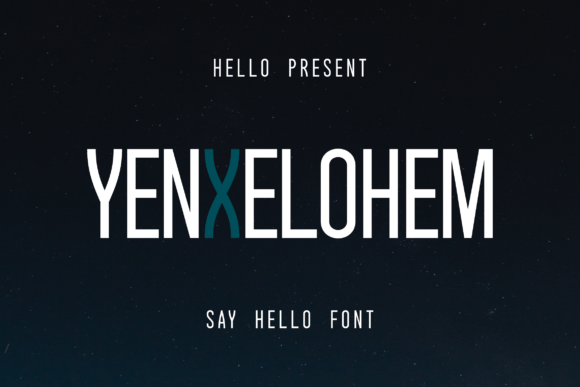
Introducing Yenxelohem Font, a remarkable sans serif font family crafted by ponuppo, a renowned typographer. This font exudes elegance and modernity, leaving an unforgettable impact on your digital creations. Its minimalist and clean vibe effortlessly elevates the visual appeal of book covers, magazines, social media posts, invitations, and a myriad of other designs.
Yenxelohem Font redefines sophistication with its crisp lines and meticulously crafted curves. It's a font that speaks volumes, communicating professionalism, clarity, and an understated charm. Immerse yourself in the world of Yenxelohem Font and discover a font that seamlessly blends timeless aesthetics with contemporary flair.
With Yenxelohem Font, you'll unlock a world of creative possibilities. Its versatility extends from finance apps to marketing campaigns, branding projects to personal blogs. Yenxelohem Font adapts effortlessly to any design concept, adding a touch of sophistication and intrigue. Its clean lines ensure readability, while its subtle curves add a touch of visual interest that captivates the eye.
Yenxelohem Font is more than just a font; it's an artistic expression that elevates your designs and engages your audience. Experience the allure of Yenxelohem Font and elevate your creative journey to new heights. Embrace the power of typography and let Yenxelohem Font transform your designs into masterpieces.
Yenxelohem Font is not just a font; it's an investment in your creative endeavors. Its timeless appeal ensures that your designs will remain relevant and captivating for years to come. Join the growing community of designers and creatives who have discovered the magic of Yenxelohem Font. Embrace the elegance, embrace the modernity, and embark on a creative journey like never before.